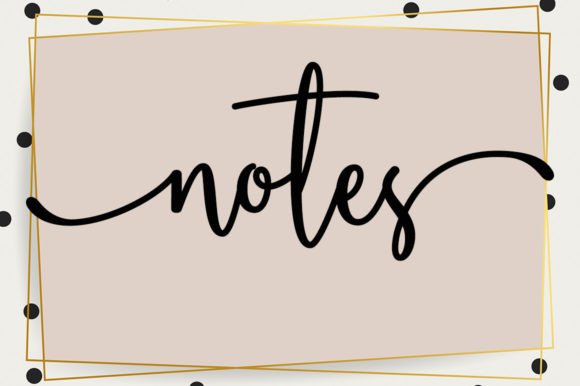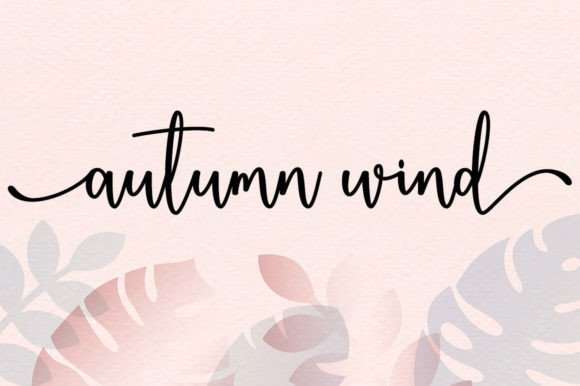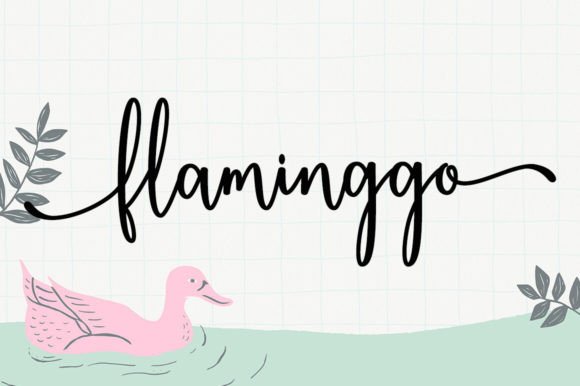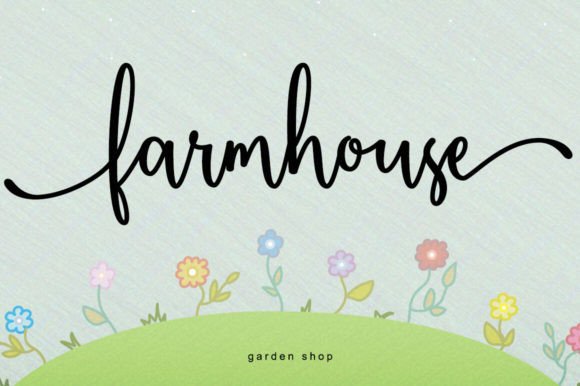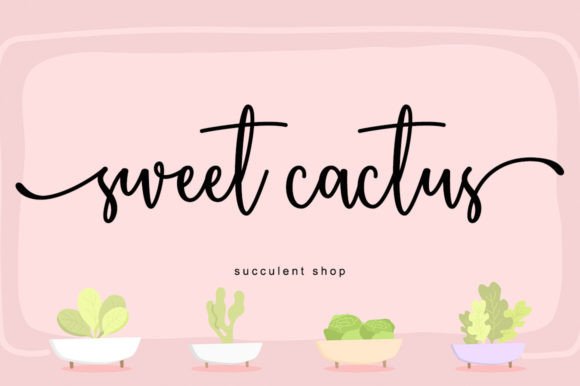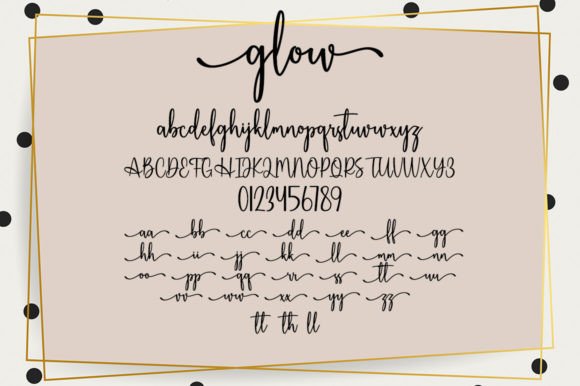
Introducing Glow Font: The Sweet and Friendly Handwritten Font for Your Creative Projects
Are you looking for a font that can add a touch of warmth and personality to your designs? Look no further than Glow Font, a sweet and friendly handwritten font that’s perfect for a wide range of creative projects. With its natural and unique style, Glow Font is incredibly versatile and can be used to create stunning designs that capture the essence of your brand or message.
What Makes Glow Font So Special?
Glow Font is a beautifully crafted handwritten font that’s designed to make your designs stand out. Its unique style is characterized by its natural, flowing lines and sweet, friendly tone. Whether you’re looking to create stylish quotes, wedding cards, magazines, fashion designs, or creative branding materials, Glow Font is the perfect choice.
The Benefits of Using Glow Font
So why should you choose Glow Font for your next design project? Here are just a few of the benefits of using this amazing font:
- Unique and eye-catching design: Glow Font has a unique and eye-catching design that’s sure to grab attention. Its natural and flowing lines make it a standout font that’s perfect for designs that need to make a statement.
- Highly versatile: Glow Font is a highly versatile font that can be used for a wide range of design applications. Whether you’re creating a stylish quote or a movie title, Glow Font is the perfect choice.
How to Use Glow Font in Your Designs
Using Glow Font in your designs is easy. Here are a few tips to get you started:
- Pair it with other fonts: Glow Font pairs well with other fonts, so don’t be afraid to experiment with different font combinations. You can use it with bold fonts for headlines or with other script fonts for a more elegant look.
- Use it for titles and headings: Glow Font is perfect for titles and headings, where its unique and eye-catching design can really make an impact.
- Add a personal touch: With Glow Font’s PUA encoding, you can access all the glyphs and ligatures to add a personal touch to your designs. Use it to create custom phrases, quotes, or messages that make your designs truly unique.
Design Ideas Using Glow Font
Glow Font is a versatile font that can be used for a wide range of design projects. Here are a few ideas to get you started:
- Wedding cards and invitations: Glow Font is perfect for wedding cards and invitations, where its sweet and friendly tone can add a touch of romance and elegance.
- Magazines and blogs: Use Glow Font to create eye-catching headlines and titles for your magazine or blog. Its unique design is sure to grab attention and make your content stand out.
- Fashion designs: Glow Font is a great choice for fashion designs, where its elegant and sophisticated tone can add a touch of glamour and style.
- Album covers and book covers: Use Glow Font to create stunning album covers and book covers that capture the essence of your music or story.
| Author | jauzadesign |
In conclusion, Glow Font is a sweet and friendly handwritten font that’s perfect for designers and crafters looking to add a touch of warmth and personality to their designs. With its natural and unique style, Glow Font is incredibly versatile and can be used for a wide range of creative projects. Whether you’re creating stylish quotes, wedding cards, magazines, fashion designs, or creative branding materials, Glow Font is the perfect choice. So why wait? Download Glow Font today and start creating stunning designs that capture the essence of your brand or message!